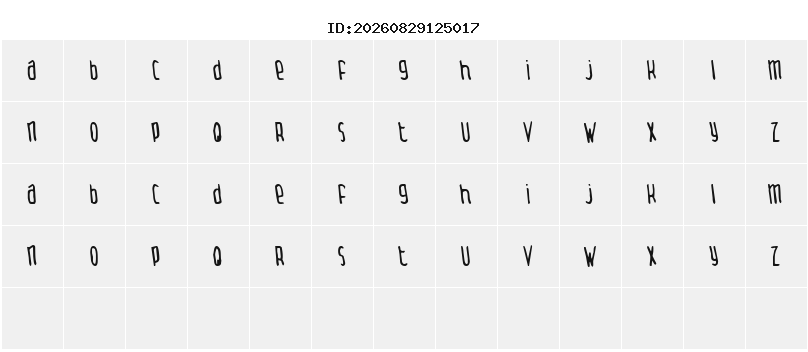
Thingamabob Preview
• Font Name: Thingamabob
• Font ID: Macromedia Fontographer 4.1 Thingamabob Normal
• Full Font Name: Thingamabob Normal
About Thingamabob.ttf
Thingamabob.ttf is a modern, elegant sans-serif font designed for ultimate readability and visual harmony. Perfect for branding, headlines, web design, and print materials.